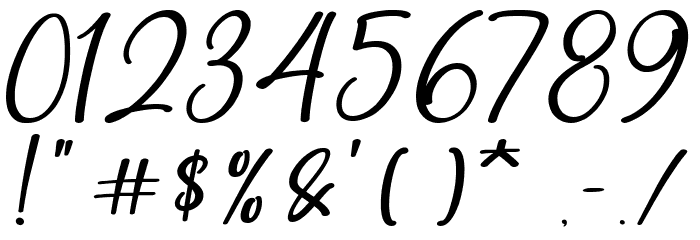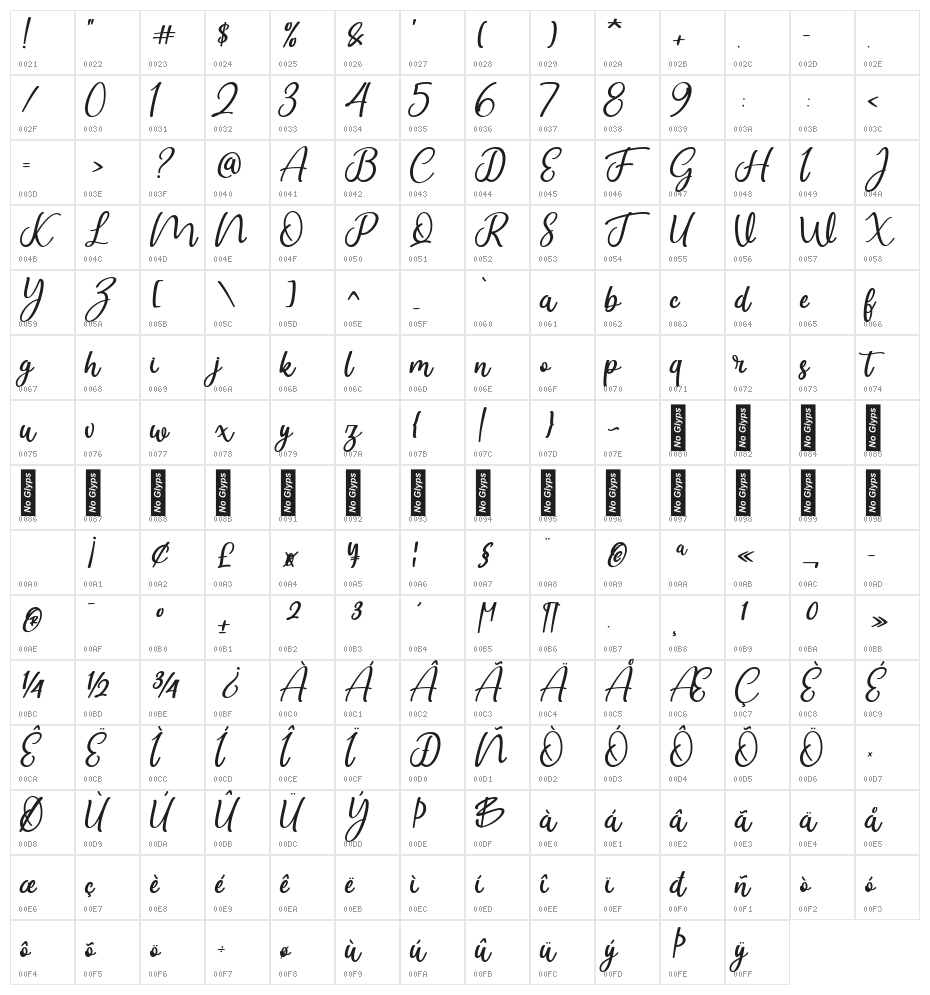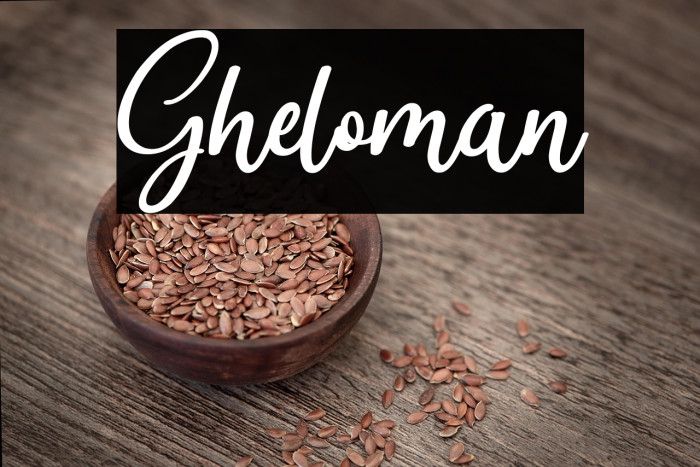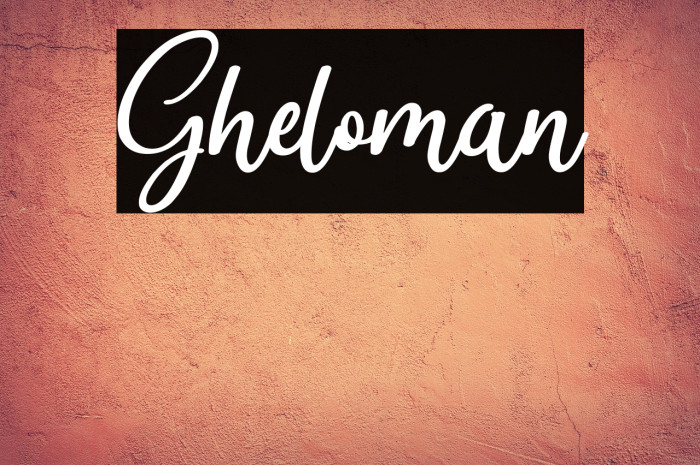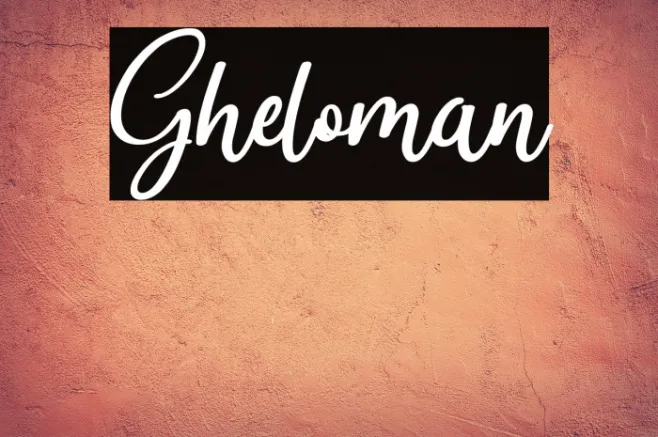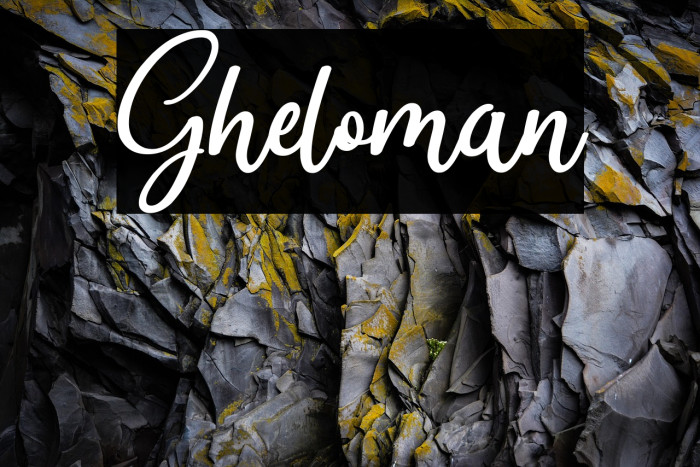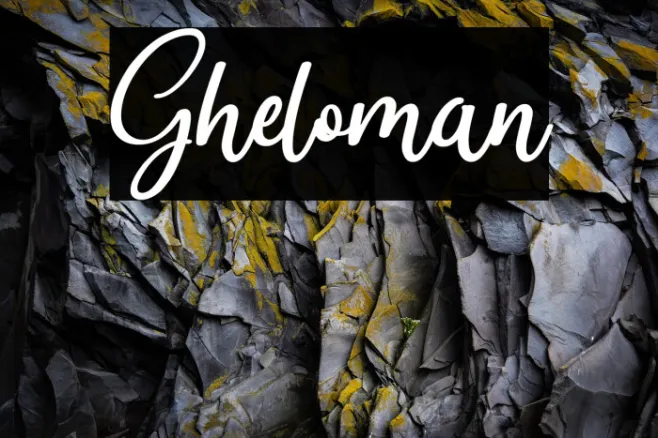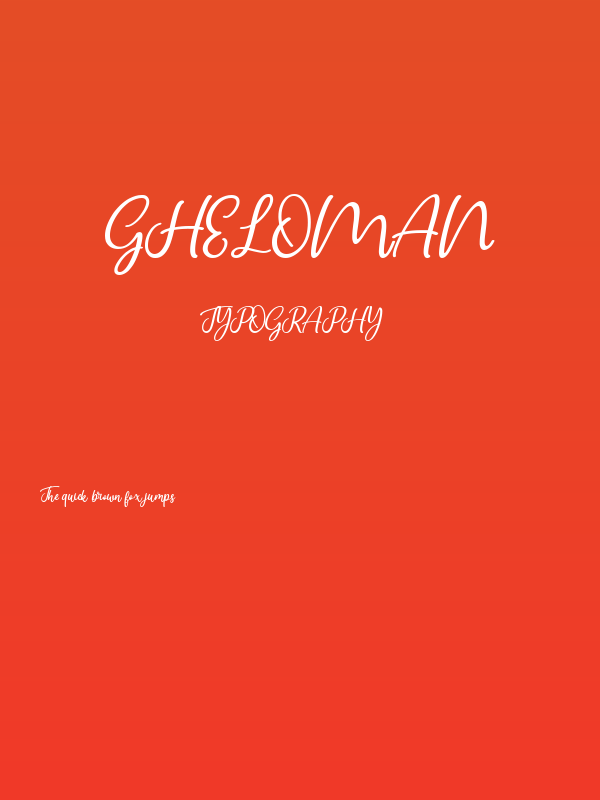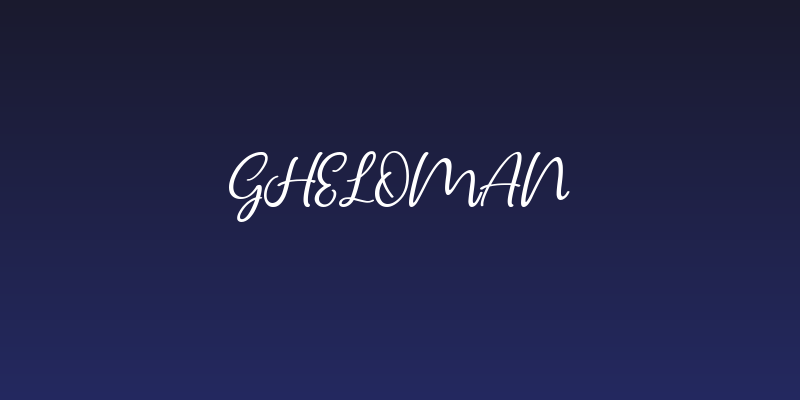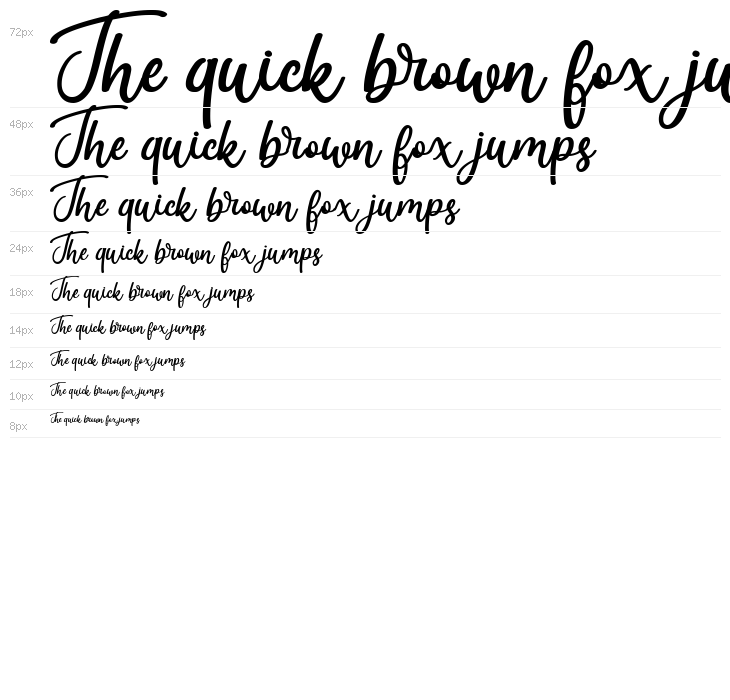
Gheloman Font
Gheloman Description
This font features a lively and expressive script style, characterized by its flowing, cursive letterforms. The uppercase letters are elegantly looped and connected, creating a sense of movement and fluidity. The lowercase letters maintain a consistent style, with smooth curves and a slightly informal appearance. Numbers and special characters are designed to match the overall aesthetic, with a playful yet sophisticated look. The font's strokes vary in thickness, adding a dynamic quality that enhances its visual appeal. This typeface is well-suited for projects that require a personal touch, such as invitations, greeting cards, and branding materials.
| Proposed Projects | Ideal for invitations, greeting cards, branding, and personal projects. |